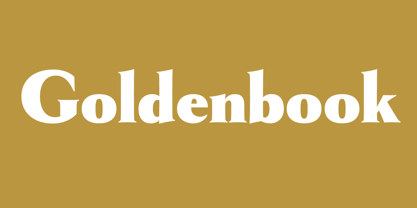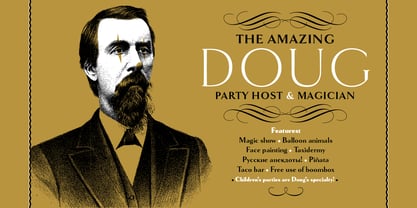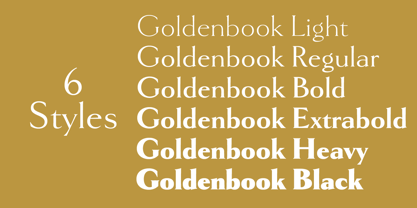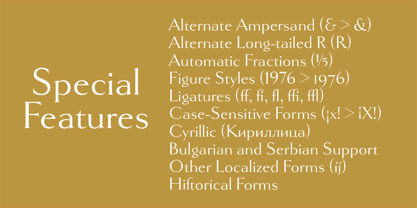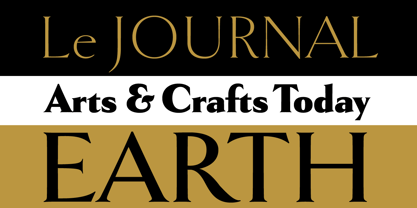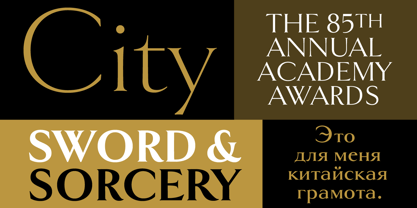
Goldenbook™
A família de fontes Goldenbook foi desenhada por Mark Simonson e publicada pela Mark Simonson Studio. Goldenbook contém 12 estilos. Saiba mais sobre esta família
Goldenbook is based on the logotype of a literary magazine from the late 1920s called The Golden Book Magazine. It is meant to be used large and includes fonts with both old style and lining numerals in each weight.